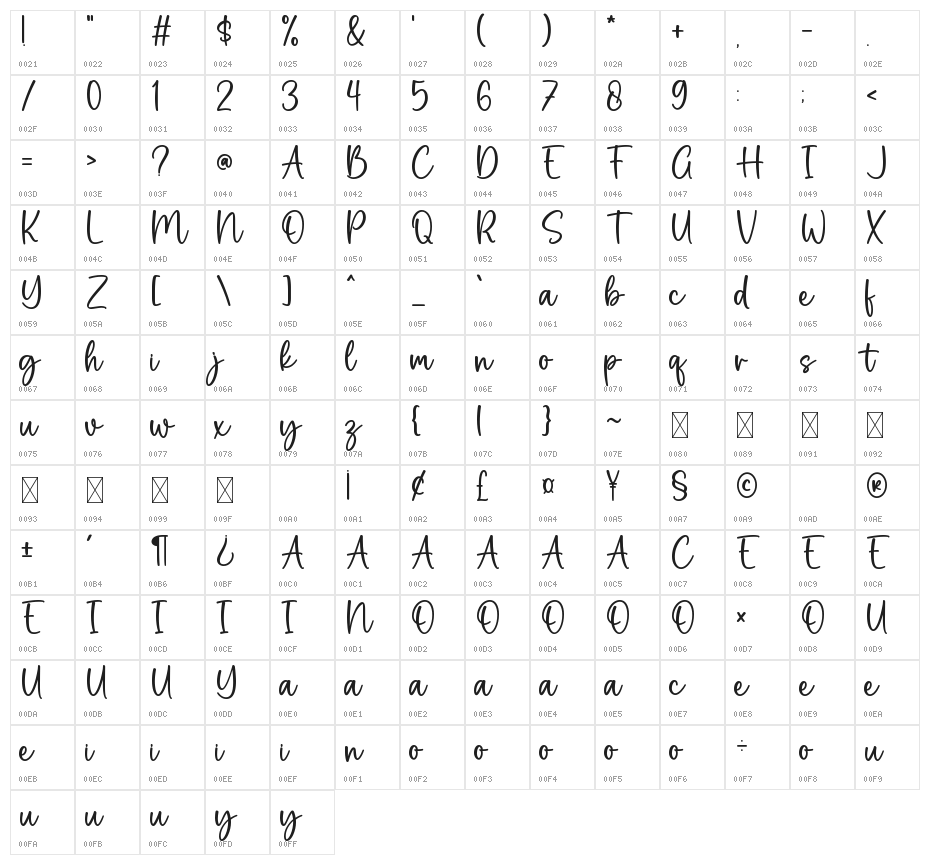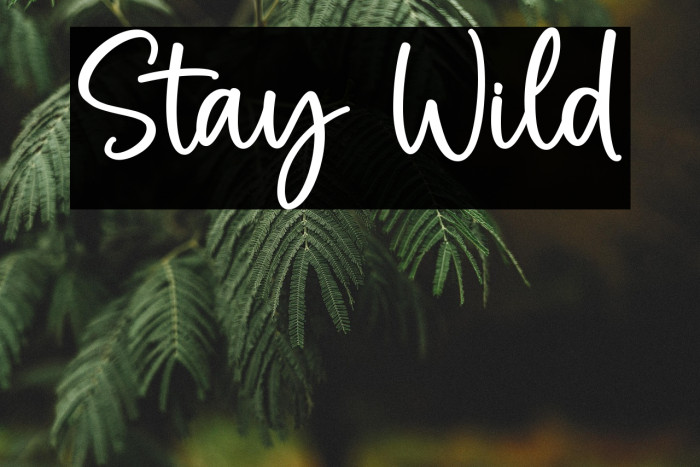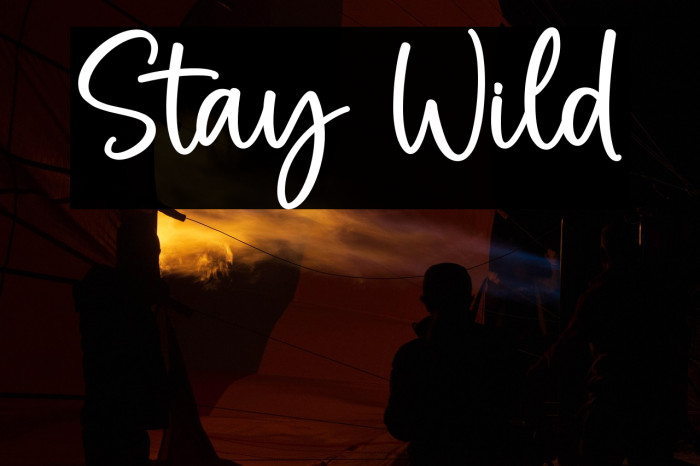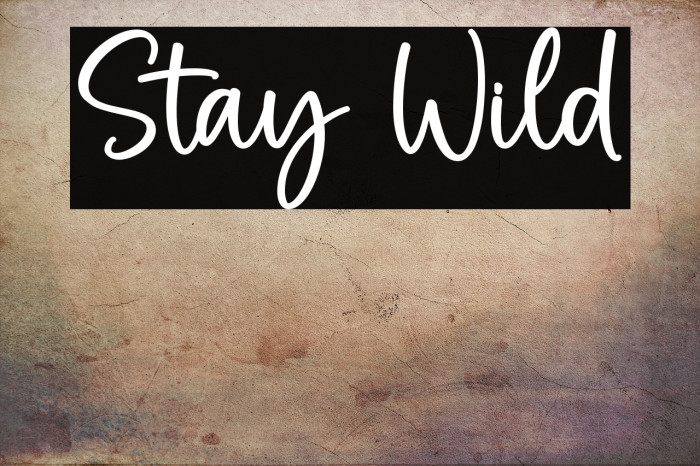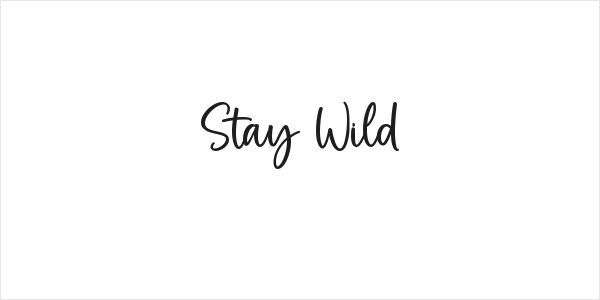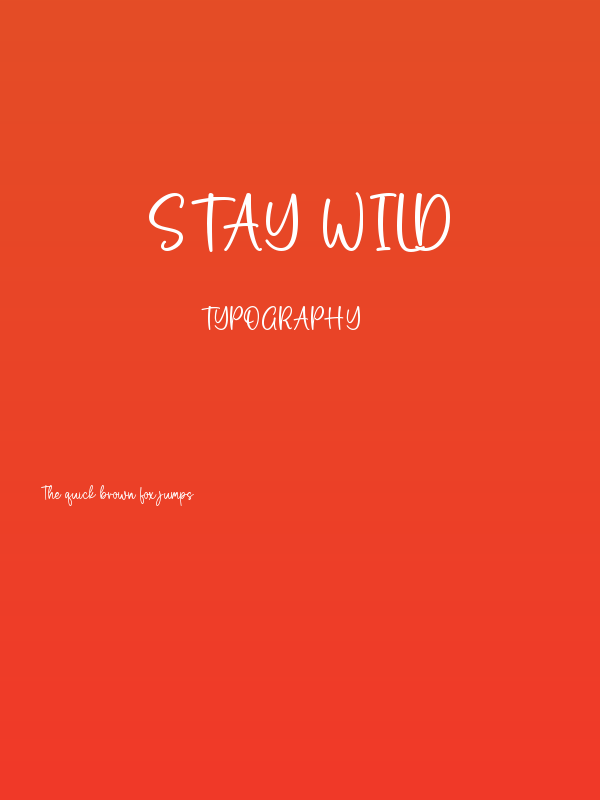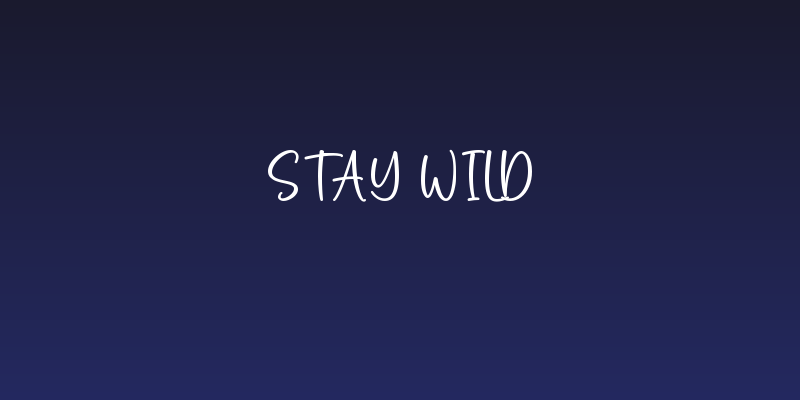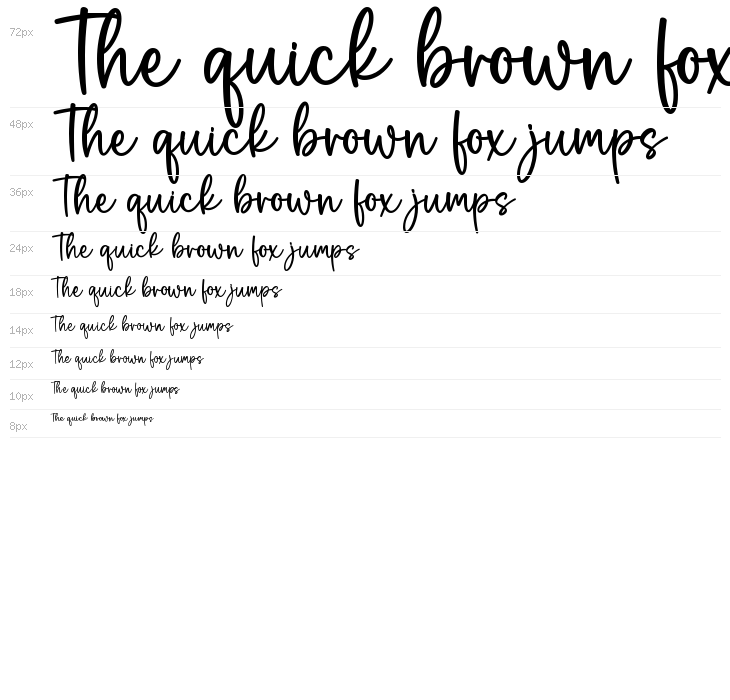
Stay Wild Font
Stay Wild Description
A playful, handwritten script font with a casual and friendly appearance. It features smooth curves and a slightly irregular baseline, giving it a natural, flowing look.
| Overall Style | Casual, Friendly |
| Proposed Projects | Greeting cards, invitations, personal branding. |